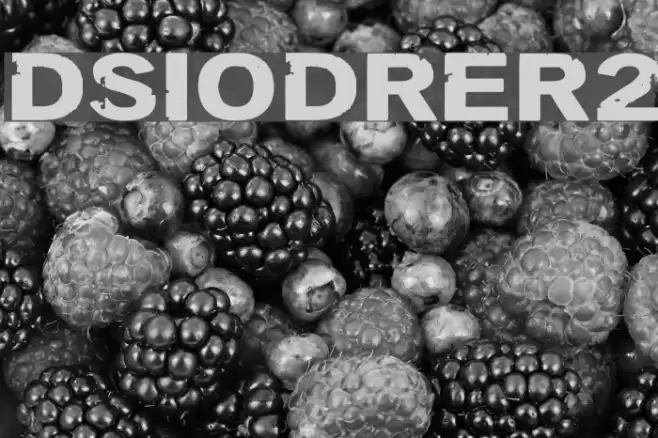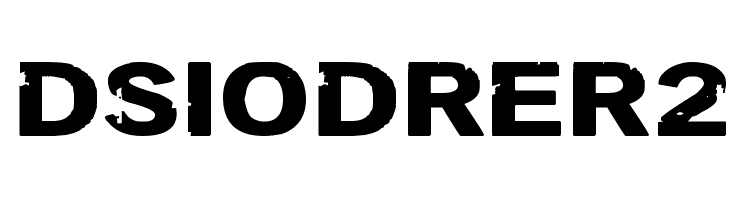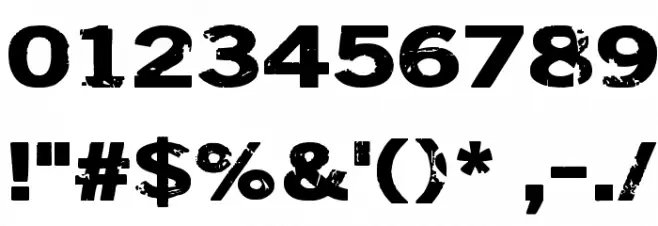
DSIODRER2 Font
DSIODRER2 Description
This font features a bold, distressed style with a rugged, textured appearance. The characters are uppercase and lowercase with a consistent thickness, giving it a strong visual impact. The distressed effect is applied uniformly across all letters and numbers, creating a worn, vintage look. The font maintains legibility despite its decorative elements, making it suitable for attention-grabbing designs. The numbers and special characters share the same distressed style, ensuring a cohesive appearance throughout. This font is ideal for projects that require a bold statement with a touch of grunge or industrial aesthetic.
A bold, distressed font with a rugged, textured appearance from Distorted Eroded fonts.
- Proposed Projects: Ideal for posters, album covers, branding for edgy or vintage-themed products, and any design needing a bold, industrial look.
- Overall Style: Vintage, Grunge